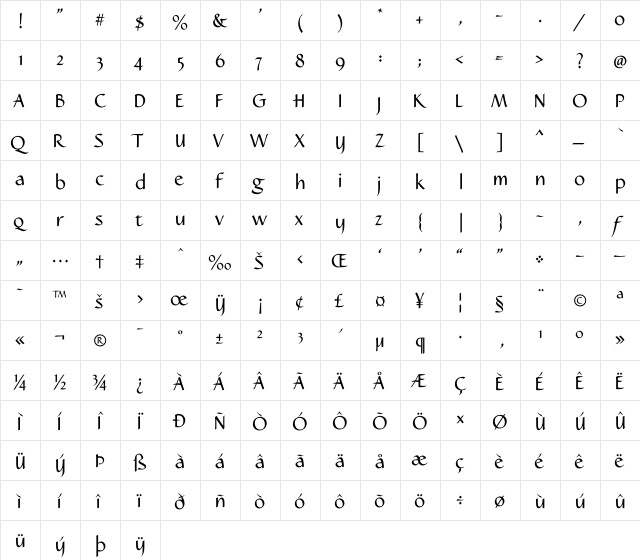
Caterina Regular
Design Context for Caterina Typeface
Caterina is a composed and adaptable typeface that performs quietly and consistently across a wide range of design contexts.
Pro Tip: Pair Caterina with a font of contrasting weight or personality to build a more expressive typographic hierarchy.